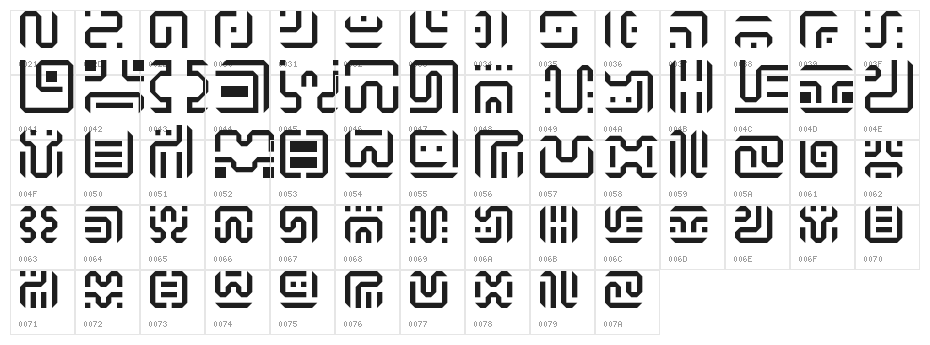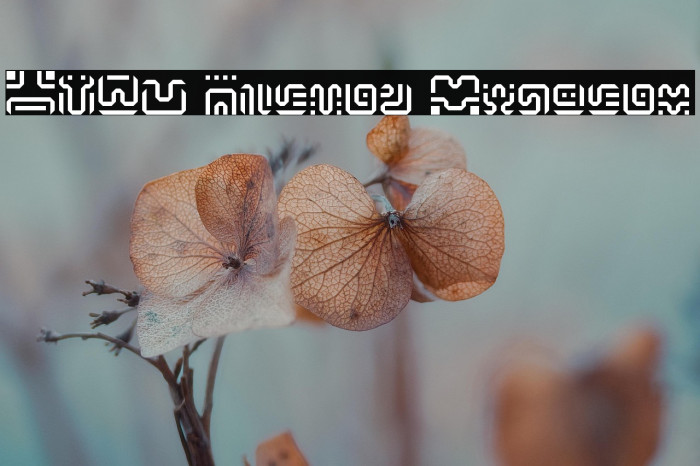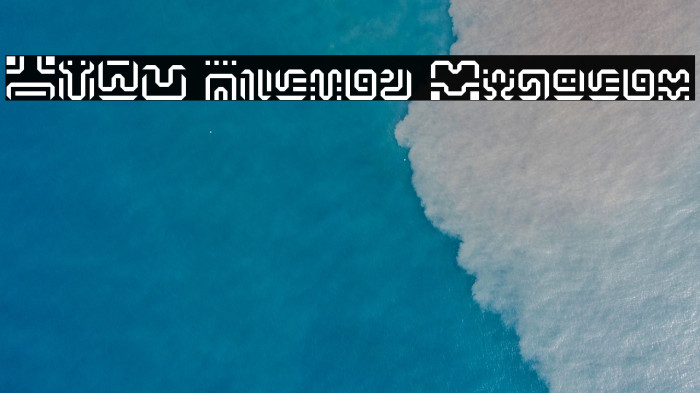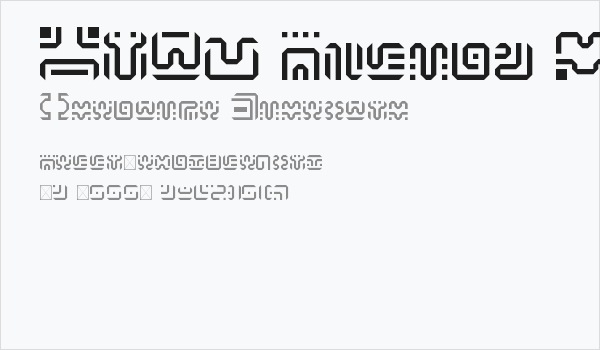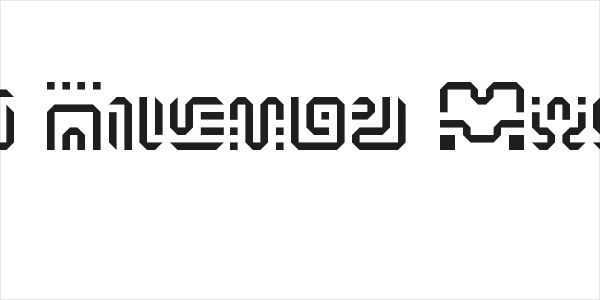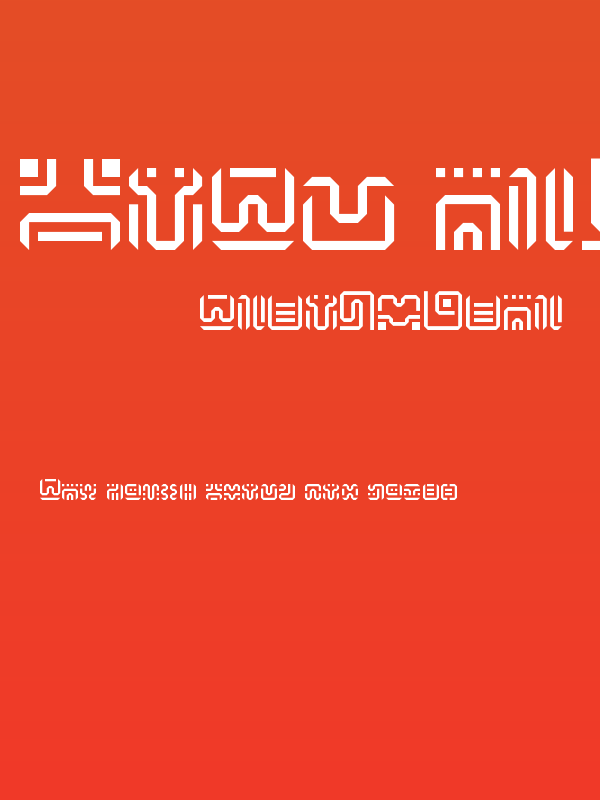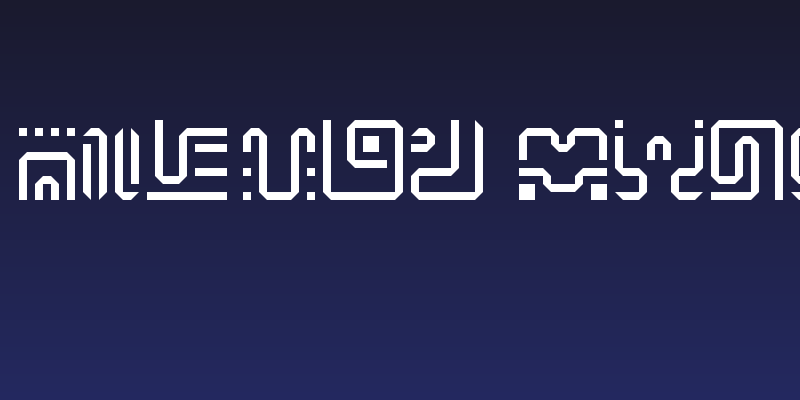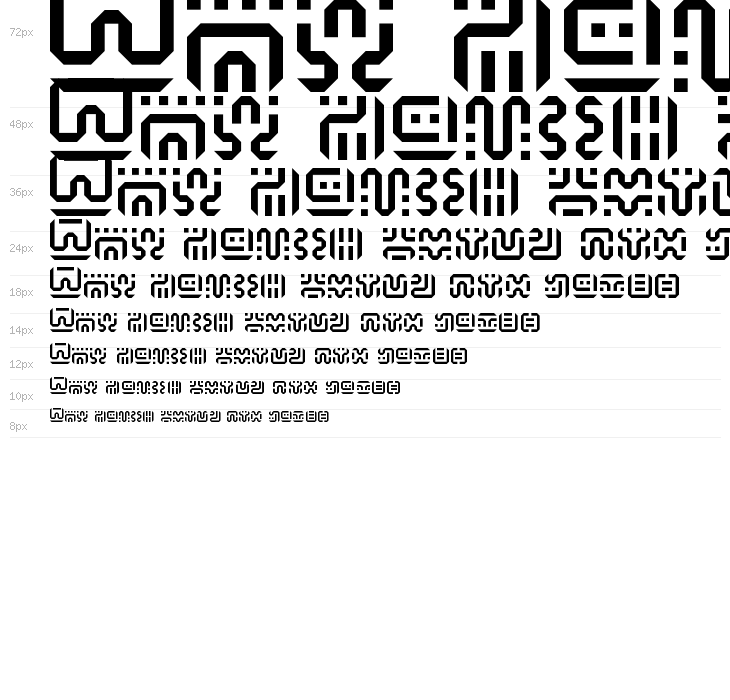
BOTW Hylian Regular Font
BOTW Hylian Regular Description
This font is a unique and decorative script inspired by ancient and mystical symbols. It features intricate geometric shapes and patterns, creating a sense of mystery and fantasy. The characters are bold and angular, with a futuristic and alien-like appearance. The design is highly stylized, making it suitable for creative and thematic projects. The font's distinctiveness lies in its ability to convey a sense of otherworldliness and adventure, reminiscent of ancient runes or glyphs.
| Use Case | Logos, Posters, Thematic Designs |
| Proposed Projects | Ideal for fantasy-themed projects, video game designs, movie posters, or any creative work requiring a mystical or ancient aesthetic. |